Fonts Like Times New Roman But Bigger
Fonts Like Times New Roman But Bigger. This is times new roman. Mschf’s designers carefully widened the letters and enlarged punctuation.
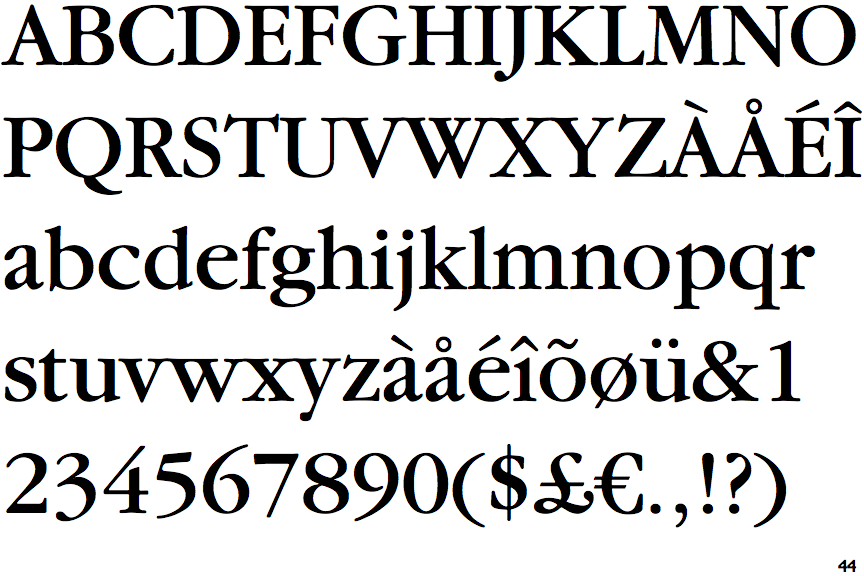
Try, buy and download any typeface from our collection of fonts similar to times new roman. Mschf drop #03 times newer roman. These 10 transitional serifs were either directly inspired by times new roman, or, in the case of plantin, were the inspiration for stanley morison’s original design.
The text also sometimes requires bold and bold italic btw, so no. Tons of books are set in garamond or janson. Wensley modern serif font family (otf, ttf, eot, svg, woff) this times new roman alternative typeface is a modern classic.
Mschf Designed The Font By Tweaking The Free Font Nimbus Roman No.
Fonts Similar To Times New Roman.
New comments cannot be posted and votes. Those add some character and charm to it, and the whole outlook of this font is very smooth and readable. Most fonts are available for desktop publishing, web and apps.
These 10 Transitional Serifs Were Either Directly Inspired By Times New Roman, Or, In The Case Of Plantin, Were The Inspiration For Stanley Morison’s Original Design.
Mschf drop #03 times newer roman. If times new roman is like wearing. It has a similar style to it, with some human touches added.
I Found The Lusitana Font Is A Great Alternative To Times New Roman.